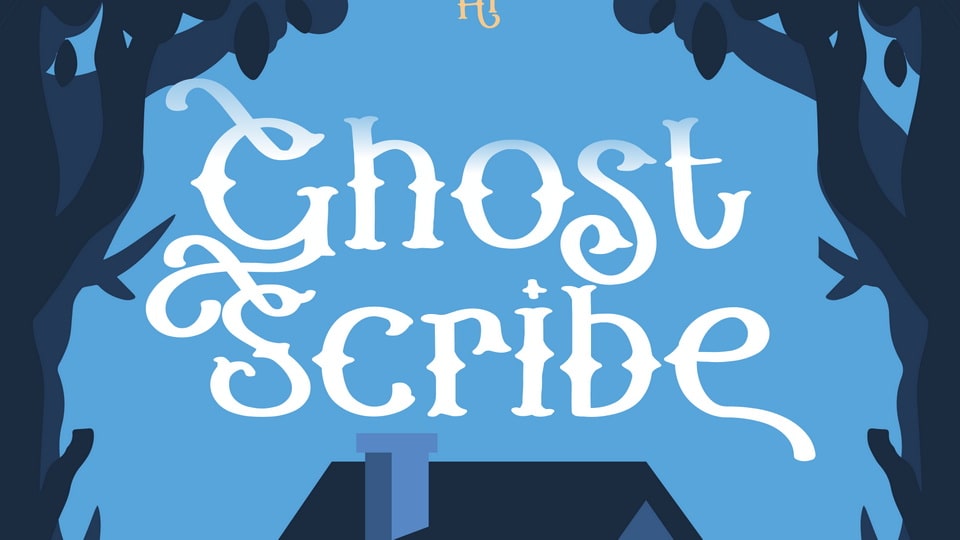
Download Ghost Scribe font, a captivating display typeface that breathes life into forgotten tales. Its hauntingly beautiful curves and elegant flourishes evoke a sense of mystery and intrigue.